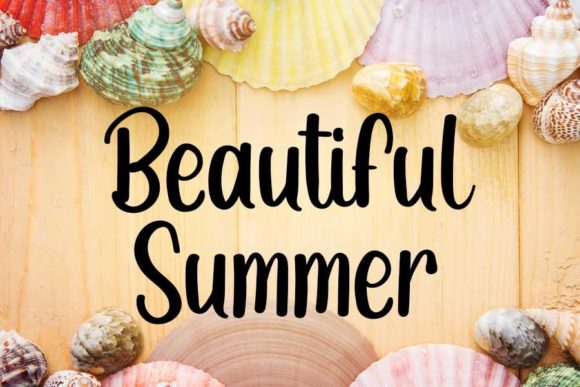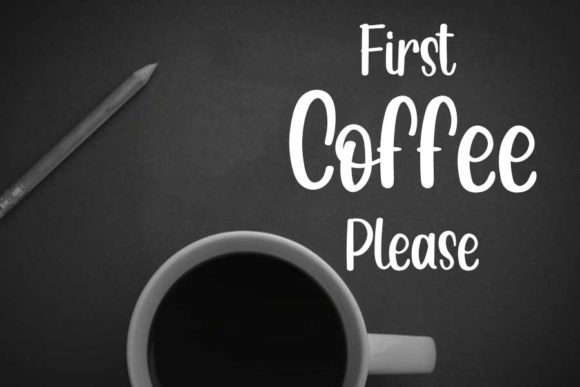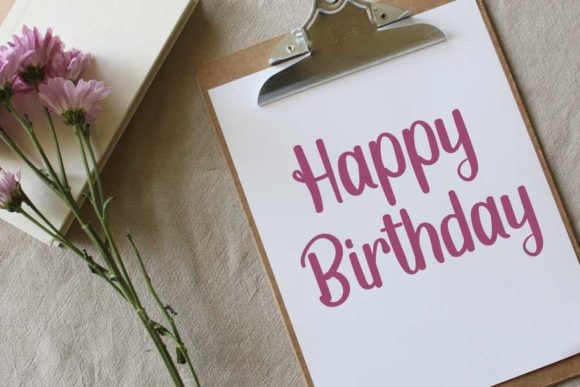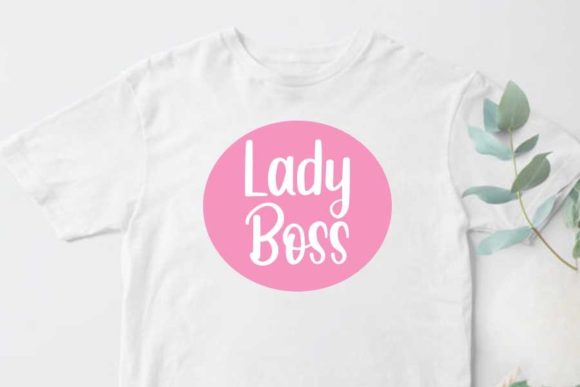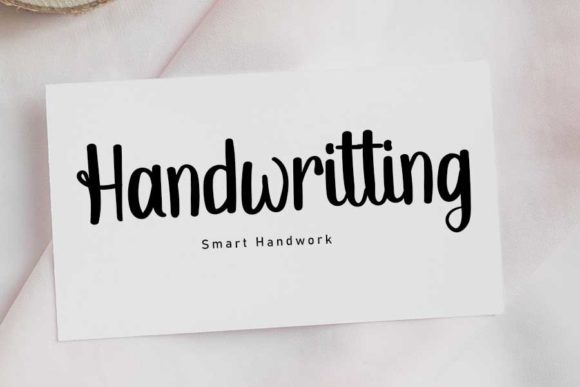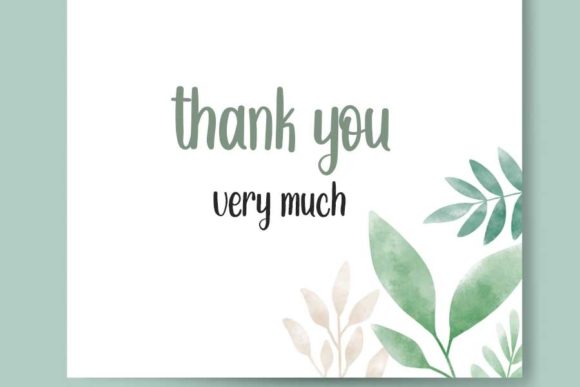
Discover the Magic of Beauty Butterfly Font
Remember that moment when a beautiful brush stroke or a perfectly imperfect handwritten script takes your design to the next level? For designers, that ‘aha’ moment is priceless, and it’s exactly what the Beauty Butterfly Font aims to deliver. This sweet and relaxed handwritten font is more than just a typography choice – it’s an experience that can elevate your projects and leave a lasting impression on your audience.
The Beauty Butterfly Font is designed to bring a natural and unique touch to your designs, making it incredibly versatile and fitting for a wide range of projects. Whether you’re working on a wedding invitation, a branding campaign, or a simple blog post, this font is sure to add a personal and emotional touch that resonates with your audience.
Beauty Butterfly Font Key Features
• Font Family: Beauty Butterfly, a unique and elegant script font
• Unique Characteristics: Features intricate, hand-drawn designs with subtle flourishes and delicate curves, adding a touch of sophistication to any project
Beauty Butterfly Font Review
Overall, I’m quite fond of the Beauty Butterfly Font. It’s a beautiful and delicate script font that’s perfect for adding a touch of whimsy to your designs. ✨ I love how the font is designed to mimic the movement of a butterfly, with gentle curves and flourishes that add a sense of elegance to any text. ✨ The font is also highly customizable, with a range of OpenType features that allow you to fine-tune the spacing and styling to your heart’s content.
However, as with any font, there are some limitations to be aware of. ⚠️ One of the main issues I’ve noticed is that the font can be a bit too ornate for certain types of projects. If you’re looking to create a clean and minimalist design, the Beauty Butterfly Font may not be the best choice. ⚠️ Additionally, the font can be a bit tricky to read in certain contexts, particularly at small sizes or in low-contrast designs.
Here are some specific pros and cons to consider:
• ✨ Beautiful and delicate design
• ✨ Highly customizable with OpenType features
• ⚠️ Can be too ornate for minimalist designs
• ⚠️ Can be difficult to read in certain contexts
Overall, I would recommend the Beauty Butterfly Font for designers who are looking to add a touch of elegance and whimsy to their projects. With a little care and attention, this font can be a real showstopper. ✨
Beauty Butterfly Font: A Practical Application Guide
Tips for Getting the Most Out of Beauty Butterfly Font
Use the Beauty Butterfly Font in combination with other design elements to create a unique and eye-catching look.
Experiment with different font sizes and colors to achieve a balanced design.
Use the font to add a touch of whimsy and elegance to your designs.
The Beauty Butterfly Font is perfect for:
Birthday party decorations and invitations
Fashion and beauty branding
Wedding and event photography
Any design project that requires a touch of elegance and whimsy.